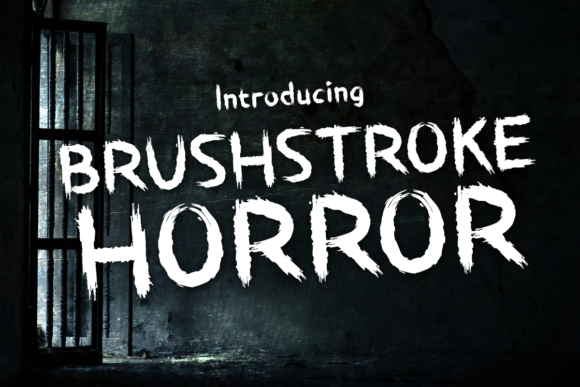
Welcome to the eerie and mysterious world of Brushstroke Horror, a spine-chilling display font that will send shivers down your spine.
Crafted with a trembling hand, each letter in this font is a twisted nightmare, as if it were conjured from the depths of a haunted house. The jagged edges and menacing strokes evoke a sense of impending doom, making this font perfect for conjuring up images of lurking monsters, creaky mansions, and otherworldly beings.
Whether you're a horror aficionado looking to create spine-tingling posters or a graphic designer seeking to add a touch of the macabre to your designs, Brushstroke Horror is the perfect choice. Its versatility extends beyond the realm of the spooky, as it can also be used to create eye-catching headlines, logos, and branding materials that will leave a lasting impression.
So, if you dare to venture into the shadowy realm of Brushstroke Horror, be prepared to unleash your creativity and let your imagination run wild. The possibilities are endless, and the only limit is your own courage. Download Brushstroke Horror today and let the terror begin!